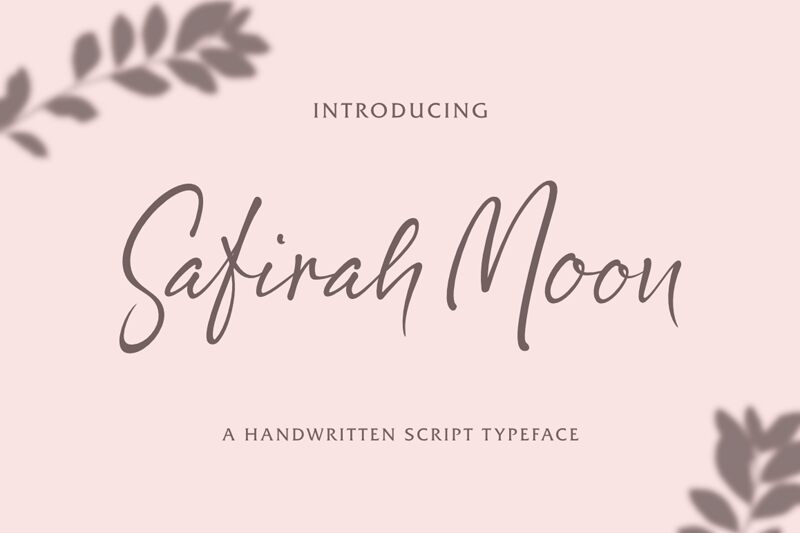
Safirah Moon Regular
Safirah Moon font, crafted by Silverdav Studio, embodies the elegance of a signature handwritten style. Its delicate strokes flow with a fluid grace, creating an inviting warmth that captures attention effortlessly. Characterized by its light form, each letter dances across the page, lending a sense of personal touch and authenticity to any design.
The soft curves and fluid lines contribute to its aesthetic charm, making it perfect for invitations, branding materials, and personal notes. This font thrives in contexts where creativity meets intimacy-ideal for projects seeking to evoke emotion and connection. Whether used in wedding stationery or stylish logos, Safirah Moon gracefully elevates the visual narrative with its unique flair.